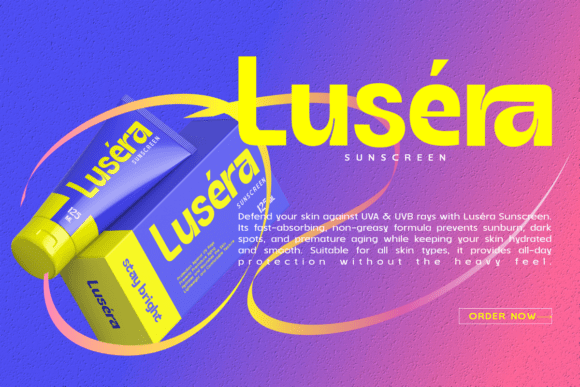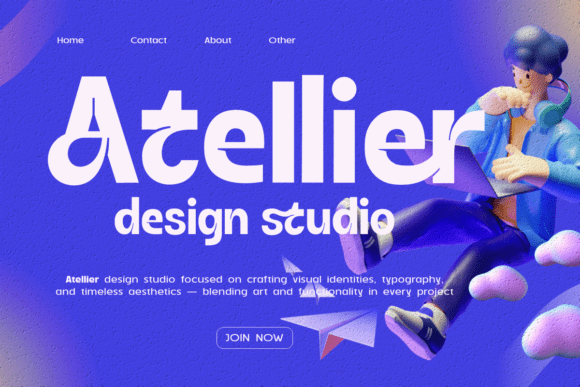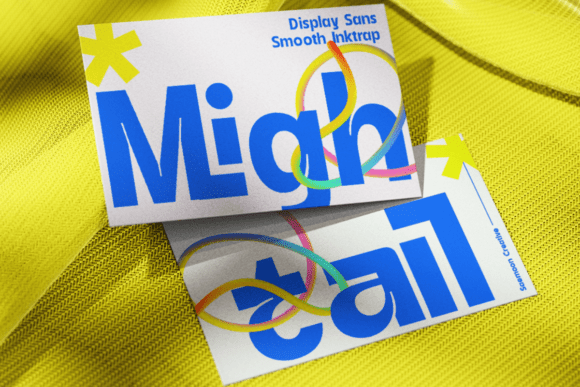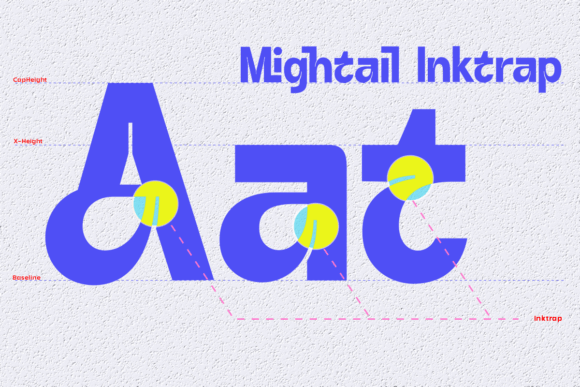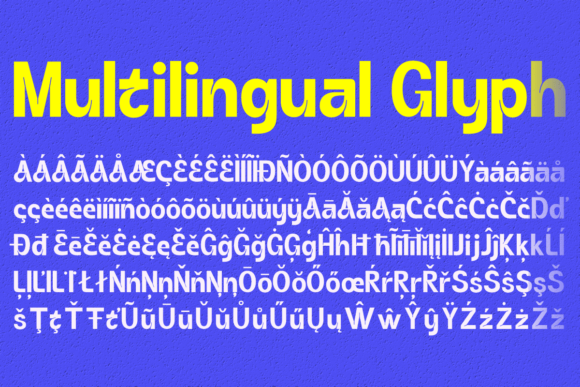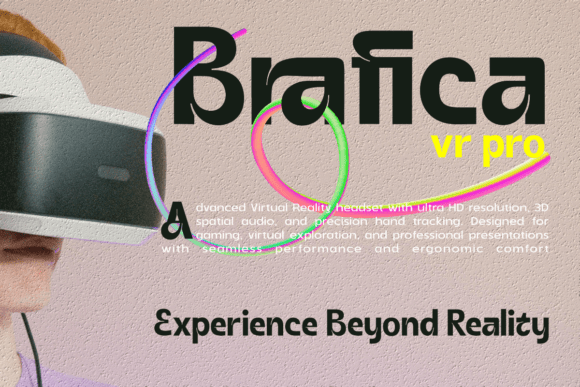
Introduction to Mightail Font
Mightail is a display sans-serif font that blends bold shapes with modern inktrap details, delivering a strong and distinctive appearance.
Its design features upright, solid letterforms with sharp cut edges, giving an industrial yet contemporary feel Mightail comes in two styles: Regular and Oblique, offering versatility for various design needs.